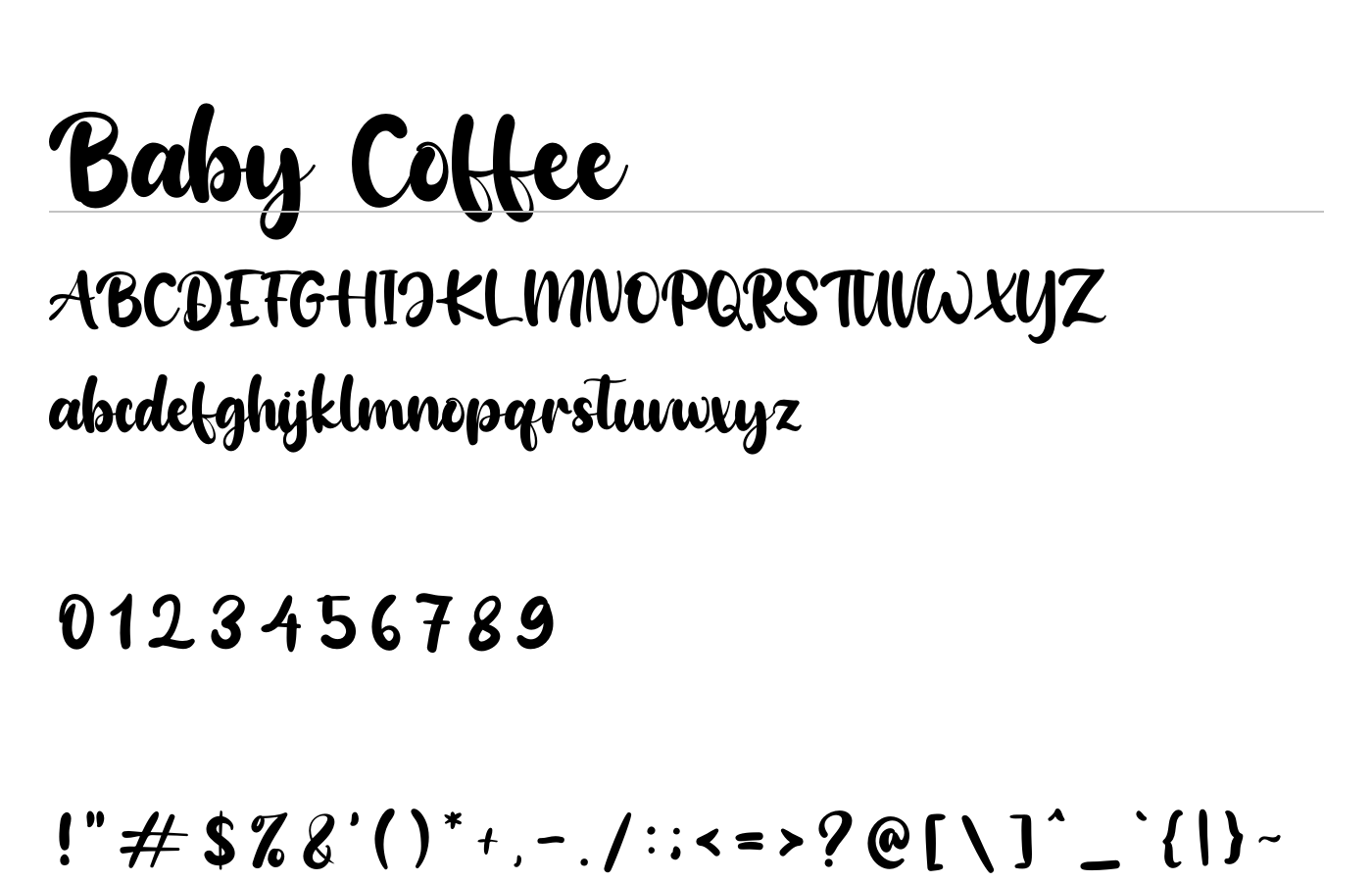
Baby Coffee Font is a lively and friendly script-style typeface with a bold weight and smooth, rounded strokes that give it a warm and approachable feel. Its playful letterforms feature charming curves and moderate contrast, making it perfect for casual and creative projects like branding, invitations, and packaging that aim to convey joy and personality. This font works best for headlines and logos where a fun, handwritten look can stand out with effortless charm.
Baby Coffee Font
About Baby Coffee Font